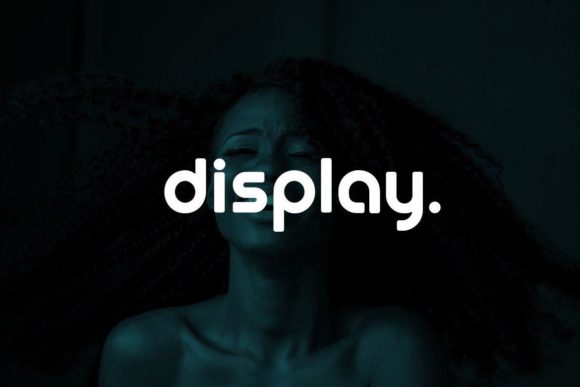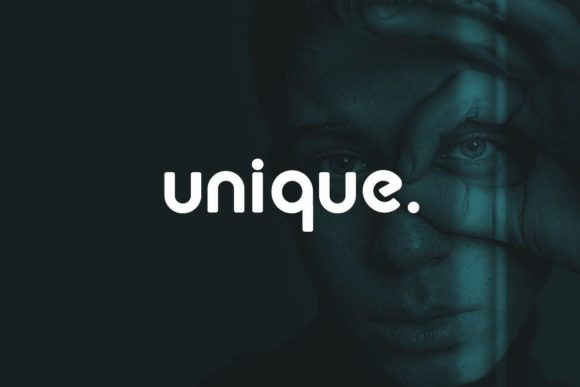
The Designer’s Delight: Getting to Know the Garavito Font
I’ll never forget the time I was working on a branding project for a trendy new cafe. My client was adamant that they wanted a font that was ‘modern, yet simple’ – a tall order, considering the hundreds of fonts at my disposal. After hours of scrolling through font libraries, I stumbled upon the Garavito font. It was love at first sight! ✨ The clean lines, the elegant curves, and the versatility of this display font won me over. In this article, I’ll share my experience with the Garavito font, its features, and how to make the most of it in your designs.
An Honest Review of Garavito Font
The Good, the Great, and the Lovely
- ✅ Clean and modern aesthetic: Garavito’s simple yet sophisticated design makes it perfect for headlines, titles, and display text.
- ✨ Highly legible: Even at smaller sizes, Garavito remains clear and easy to read, making it a great choice for body text.
- 💡 OpenType features: This font comes with a range of OpenType features, including stylistic alternates, ligatures, and glyphs, giving you plenty of creative options.
While Garavito is an excellent font, it’s not without its quirks. ⚠️ Keep in mind that:
- 🤔 Limited use in long-form text: While Garavito is legible, its modern design may not be the best fit for lengthy paragraphs or articles.
- ⚠️ May require adjustments for non-English languages: As with any font, you may need to make adjustments for languages that use non-English characters.
The Story Behind Garavito Font
While the origins of Garavito font are shrouded in mystery, it’s said that the designer was inspired by the elegant curves of modernist architecture. 💡 The result is a font that’s both timeless and trendy, perfect for designers looking to add a touch of sophistication to their work.
| Font Name | Garavito Font |
| Author | Webhance |
Q: What type of projects is Garavito font best suited for?
A: Garavito font is ideal for display text, headlines, titles, and short-form content, such as branding, advertising, and marketing materials.